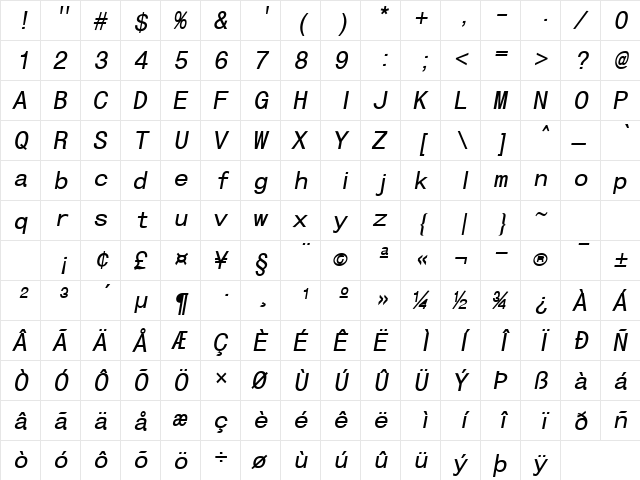
HelvMono Oblique
Design Context for HelvMono Typeface
HelvMono uses fixed-width spacing throughout, giving it the structured, systematic character associated with coding environments and technical documentation. Its italic angle brings a sense of urgency and motion to the letterforms.
Pro Tip: Pair HelvMono with a proportional sans for UI contexts where code-style labels and regular body copy need to coexist.